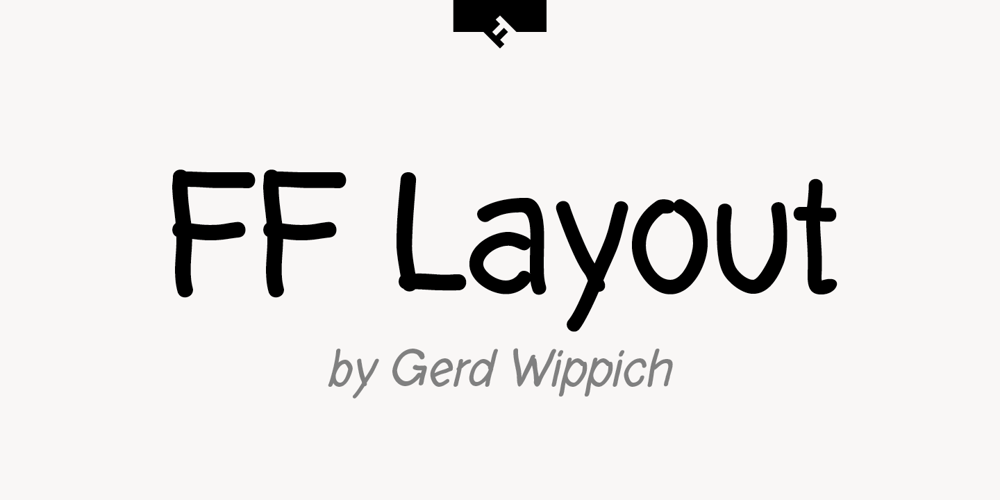
FF Layout Font Family was designed by Gerd Wippich and published by FontFont. FF Layout contains 4 styles and family package options. German type designer Gerd Wippich created this script FontFont in 1996. The family has 7 weights, ranging from Regular to Bold (including italics) and is ideally suited for festive occasions and editorial and publishing. FF Layout provides advanced typographical support with features such as ligatures and case-sensitive forms. It comes with tabular lining figures.